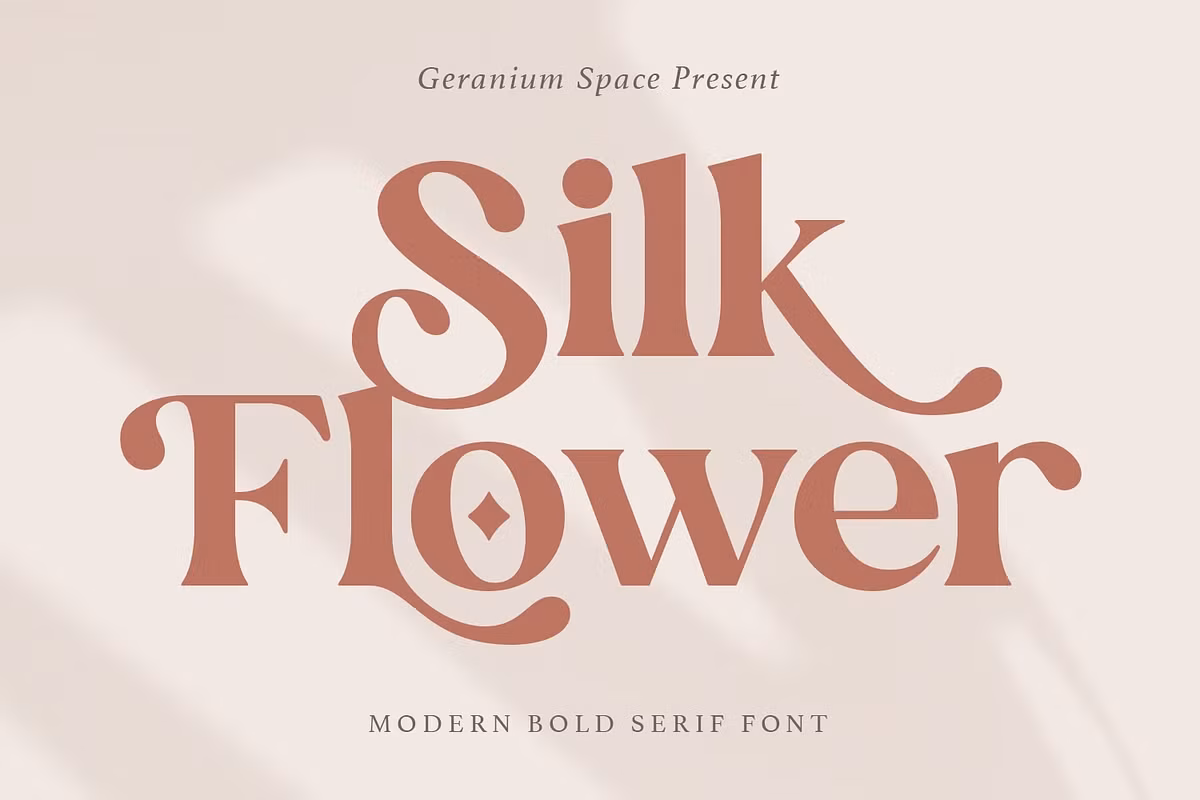
Silk Flower - Modern Serif Free Download
Silk Flower - Modern Serif Font Free Download
Please note, you must purchase this font for commercial use. However, you can easily download Silk Flower - Modern Serif Font Free Download for personal use and testing purposes. Silk Flower - Modern Serif Font is a stylish and elegant serif typeface designed to bring a touch of sophistication and modernity to your designs. Perfect for branding, editorial layouts, logos, and invitations, this font features clean lines, balanced proportions, and a timeless appeal. Whether you're working on a high-end brand identity, a chic wedding invitation, or a luxury product label, Silk Flower - Modern Serif Font Free Download will elevate your design with its refined, professional aesthetic. Download Silk Flower - Modern Serif Font Free Download today and explore its potential before opting for a commercial license.